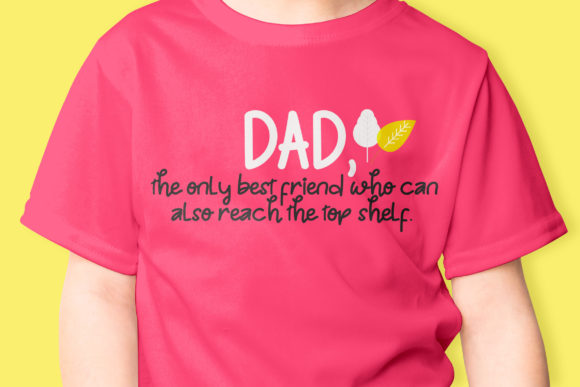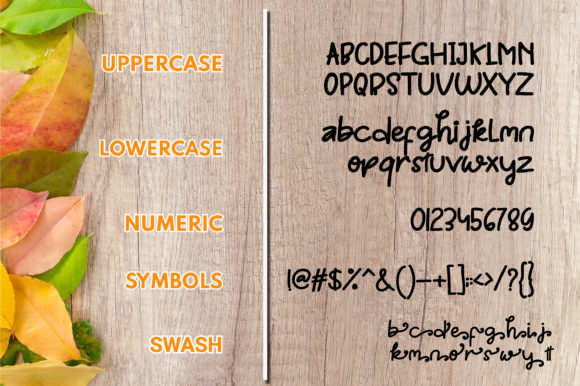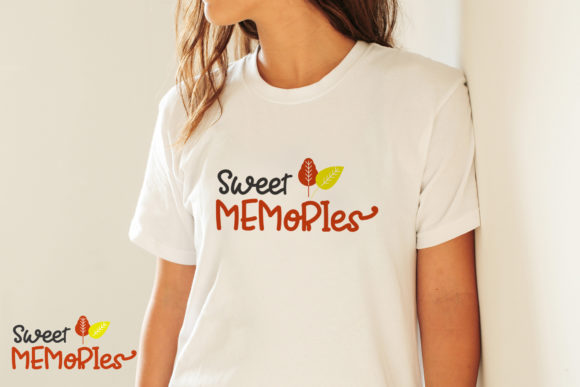
Discover the Perfect Blend of Classic and Whimsy
Remember the thrill of browsing through a vintage craft store, surrounded by colorful fabrics, glittery embellishments, and stacks of eclectic fonts? For many creatives, the hunt for the perfect font is a journey that sparks imagination and fuels inspiration. Today, we’re excited to introduce you to Fresh Onion Font, a charming handwritten font that’s about to become your new favorite companion for crafting projects.
With its effortlessly classic style and friendly demeanor, Fresh Onion Font is the perfect choice for designers looking to add a touch of whimsy to their designs. Whether you’re working on a wedding invitation, a children’s book, or a social media graphic, this font is sure to bring a smile to your face and a dash of personality to your project. So why settle for a generic font when you can add a pinch of Fresh Onion magic to your next creative endeavor?
Fresh Onion Font Key Features
- Font Family: Fresh Onion Font is a unique, hand-drawn font designed to evoke a sense of freshness and elegance.
- Character Set: The font includes a comprehensive character set, including uppercase and lowercase letters, numbers, punctuation marks, and special characters.
- Unique Characteristics: Fresh Onion Font features a distinctive, hand-drawn style with subtle imperfections and nuances, giving it a unique and organic feel.
Designer Review: Fresh Onion Font
Overall, I think Fresh Onion Font is a decent addition to any designer’s toolkit. The font has a unique, casual feel that’s perfect for creating a relaxed atmosphere in a design project.
- The font’s subtle texture adds a nice layer of depth to text.
- The character set is quite extensive, making it suitable for a wide range of languages.
- The font’s casual vibe makes it perfect for creating a friendly, approachable tone in a design project.
- The font’s texture can sometimes make it difficult to read, especially in small sizes.
- The font’s limited bold and italic styles can make it difficult to create emphasis in a design project.
- The font may not be suitable for formal or professional designs, as its casual feel may not be taken seriously.
Overall, I would recommend Fresh Onion Font to designers who are looking to add a relaxed, casual touch to their designs. However, it may not be the best choice for formal or professional projects.
Tips for Getting the Most Out of Fresh Onion Font
For optimal use, pair Fresh Onion Font with a clean and simple design. Avoid using too much text as the font’s unique style can be overwhelming. Consider using it for headings or titles to add a touch of personality to your design.
Fresh Onion Font is well-suited for creative and artistic projects such as posters, flyers, and social media graphics. It’s also great for use in editorial and publishing projects where a unique and eye-catching font is desired.